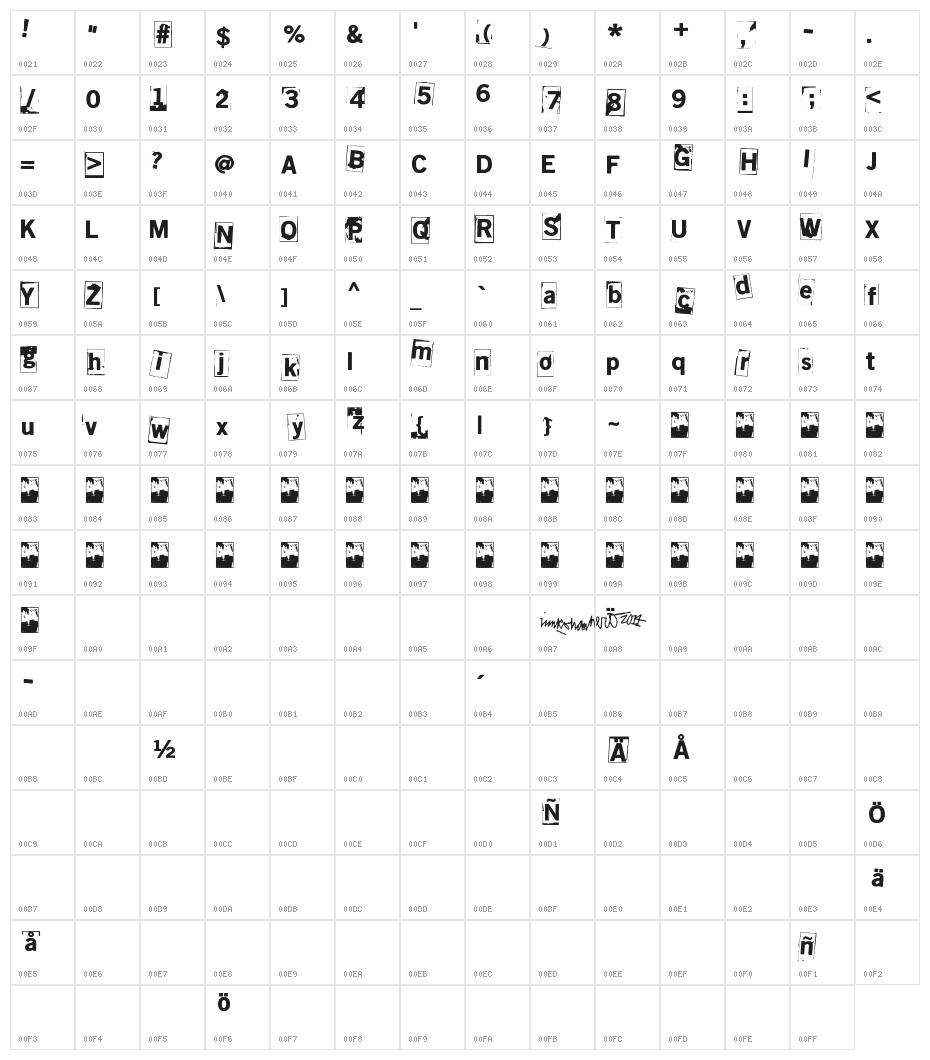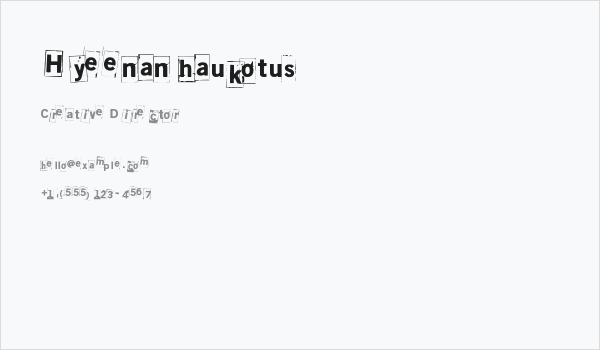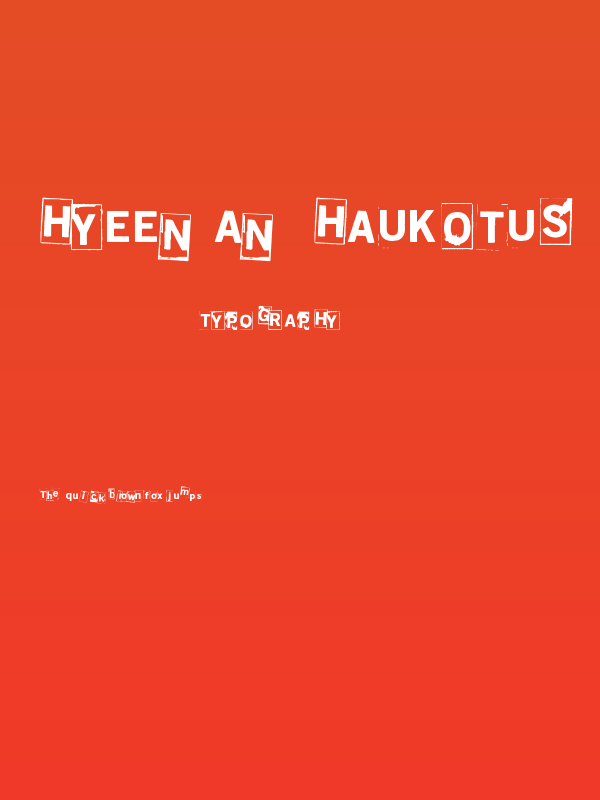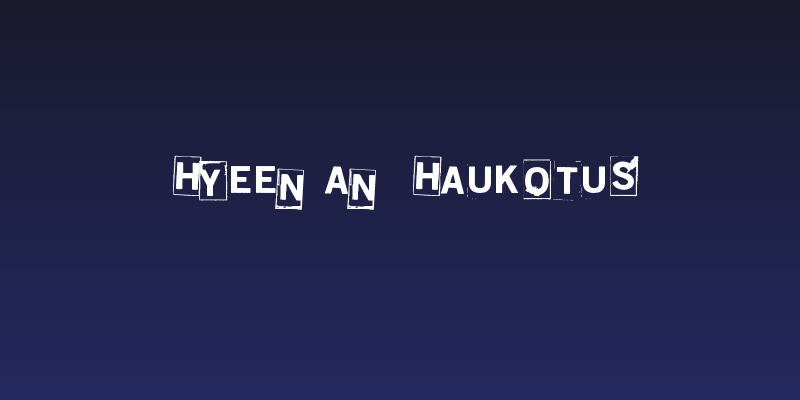
Hyeenan haukotus Font
Hyeenan haukotus Description
This font features a distinctive, grunge-inspired style with each character appearing as if it has been cut out from a magazine or newspaper. The letters are bold and irregular, with varying levels of distress and texture that give them a rugged, edgy appearance. The uppercase and lowercase letters maintain a consistent theme, while the numbers and special characters add to the chaotic, ransom-note aesthetic. The overall look is dynamic and eye-catching, making it suitable for designs that require a bold statement.
| Proposed Projects | Ideal for album covers, posters, edgy branding, and any project requiring a rebellious or unconventional look. |